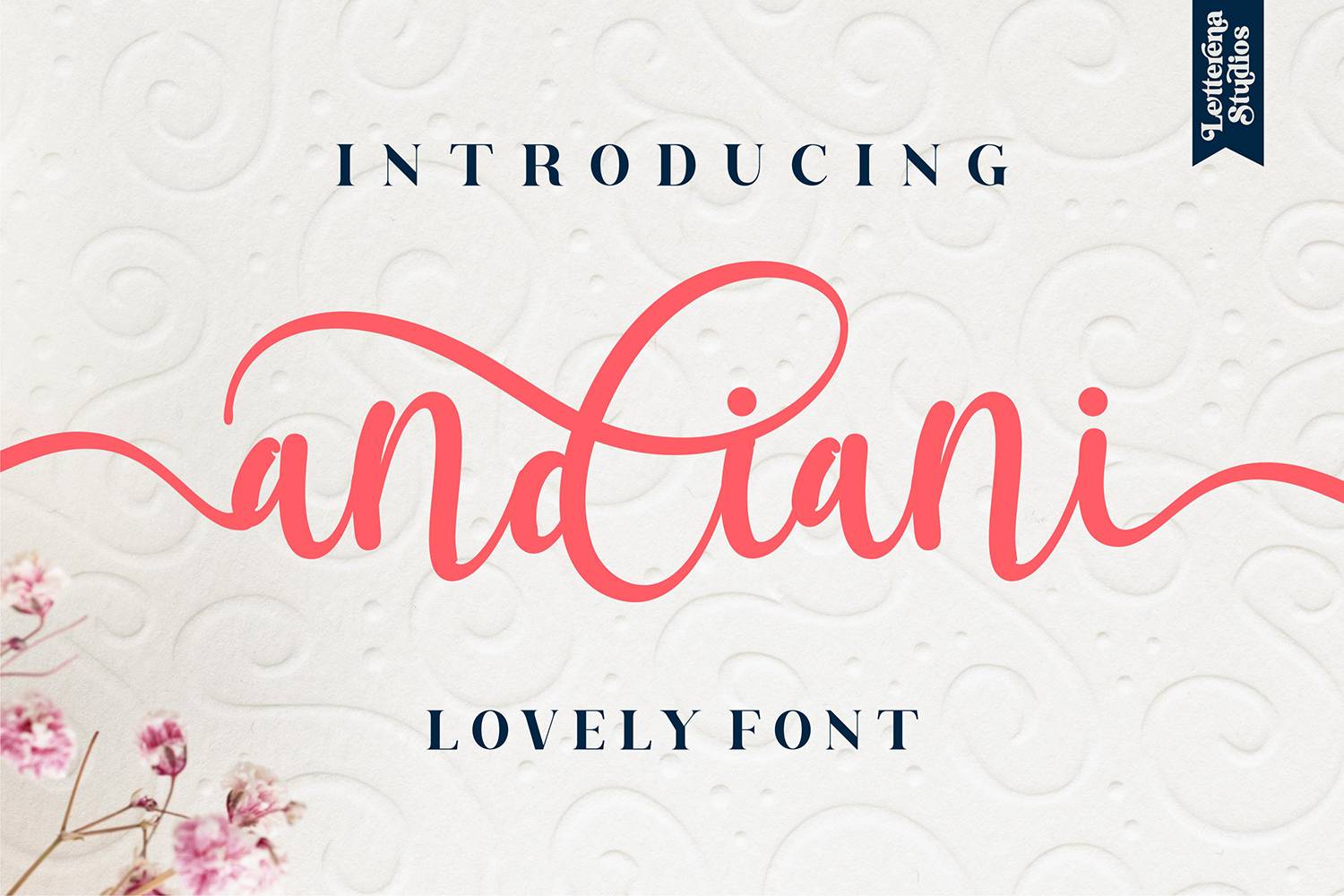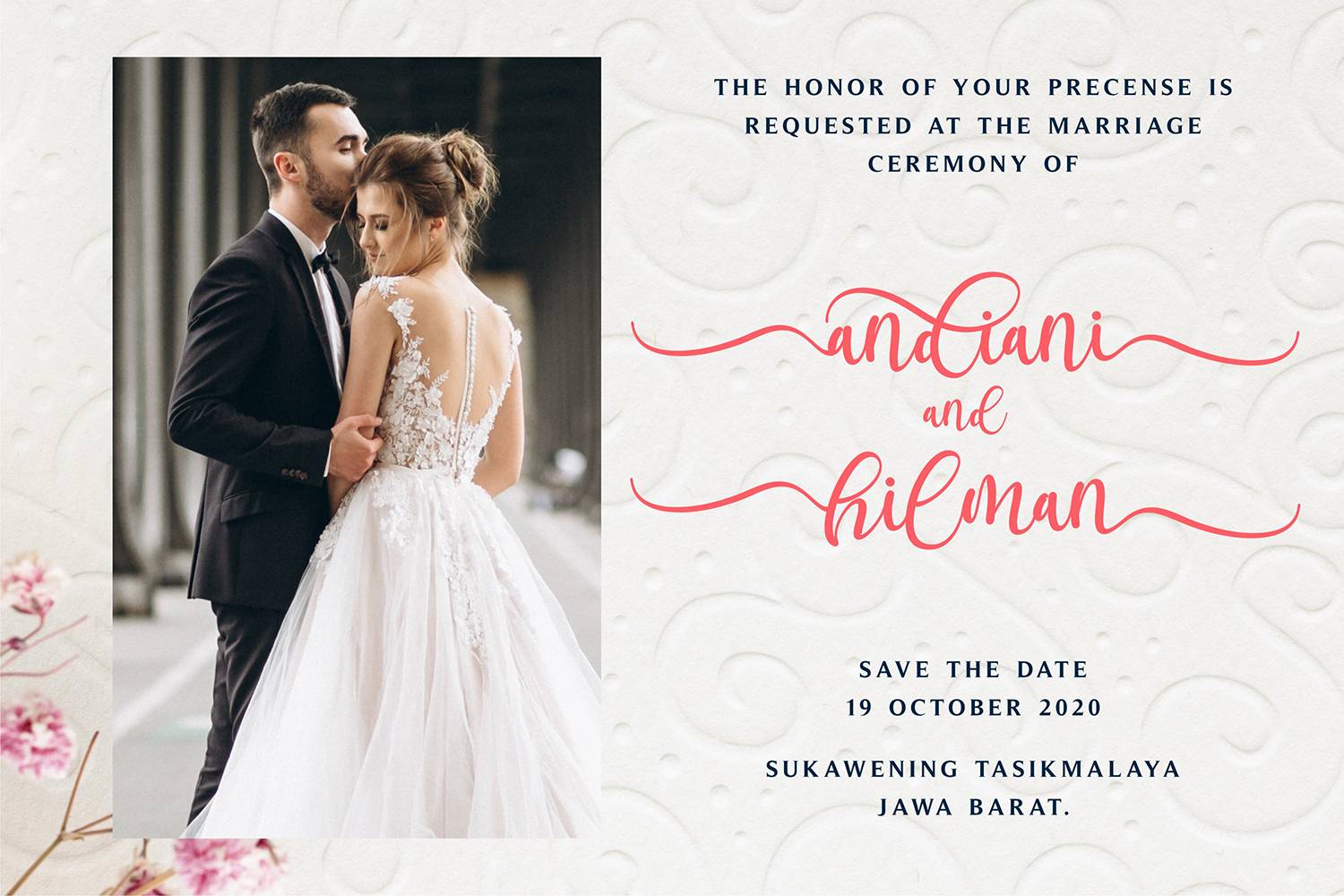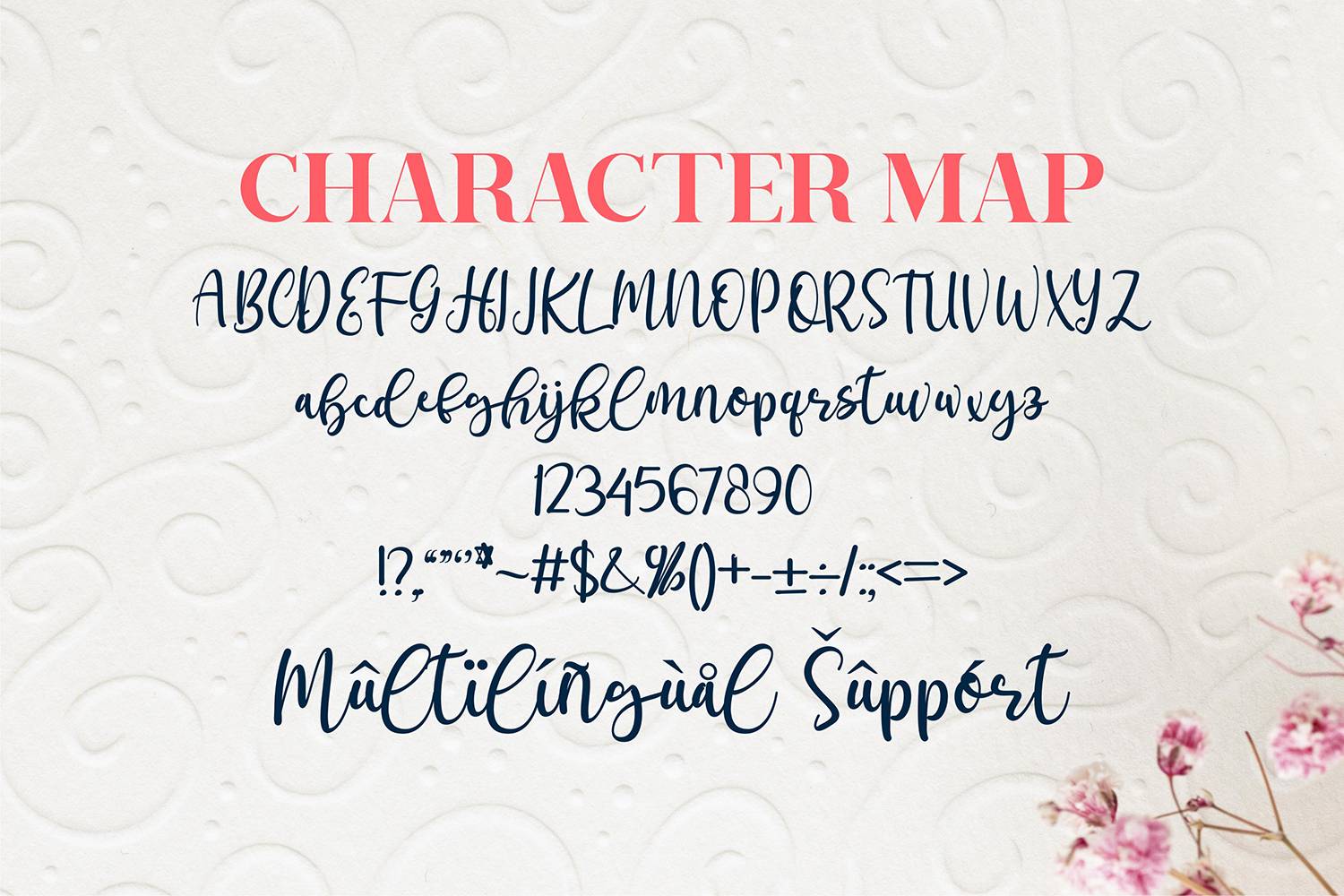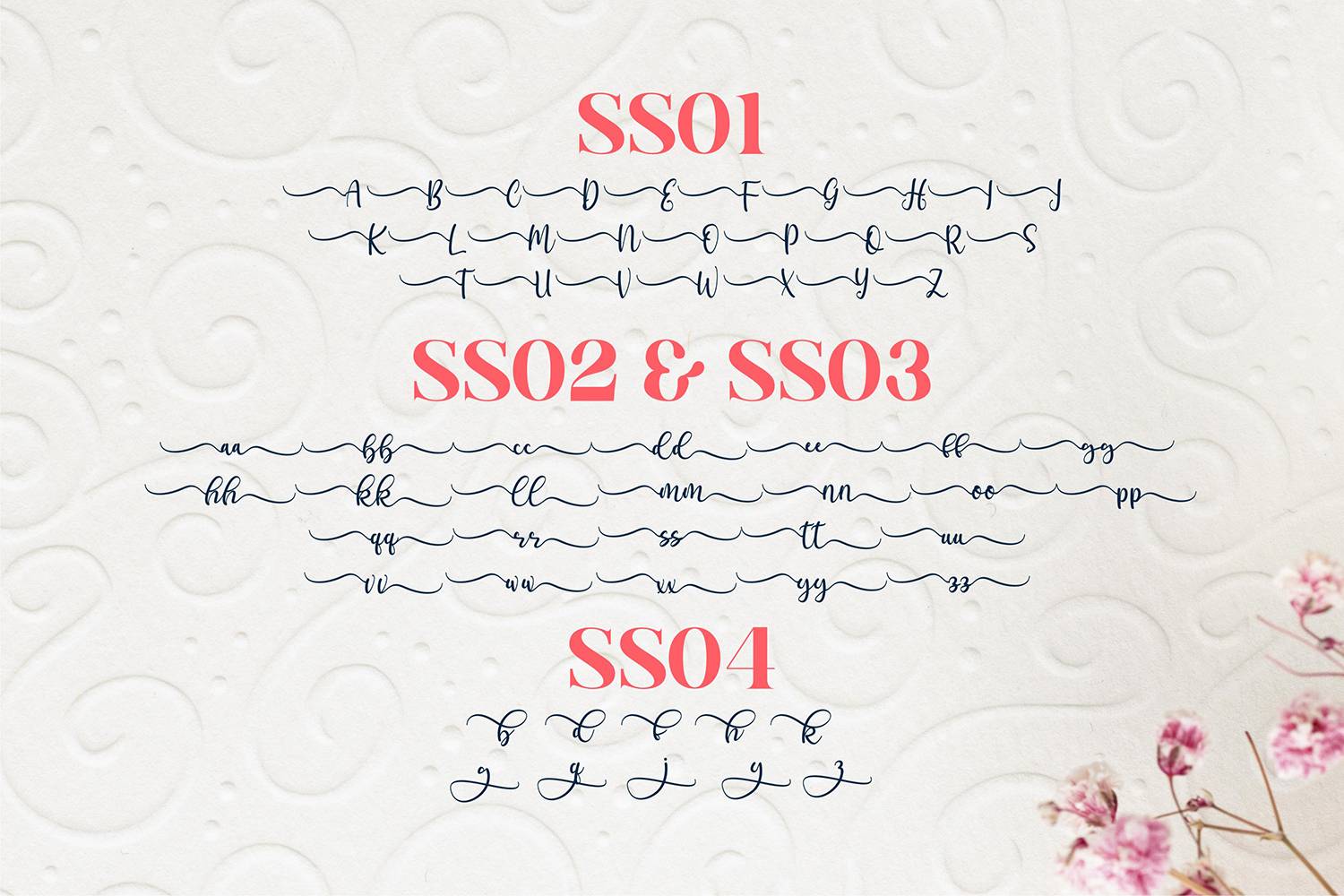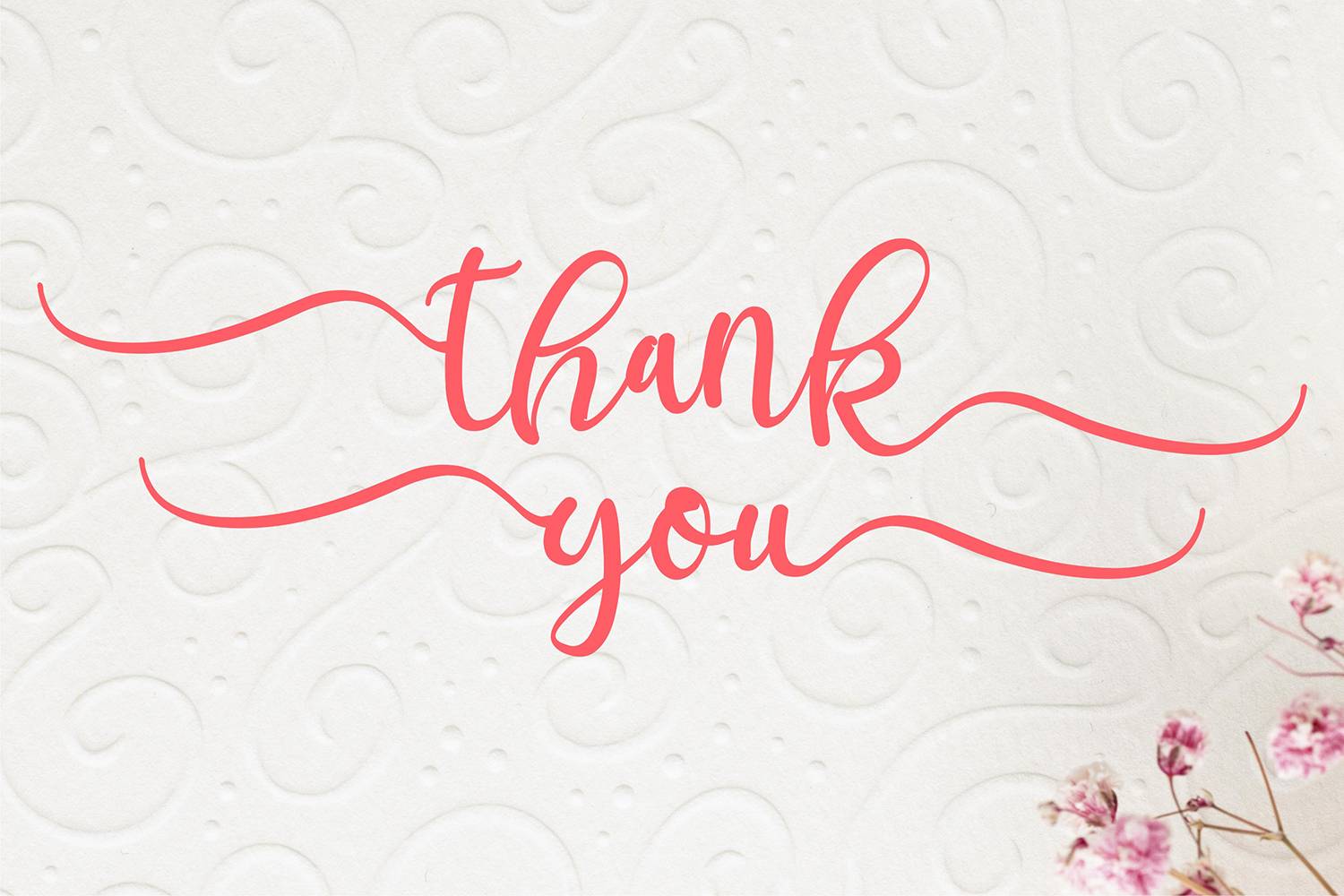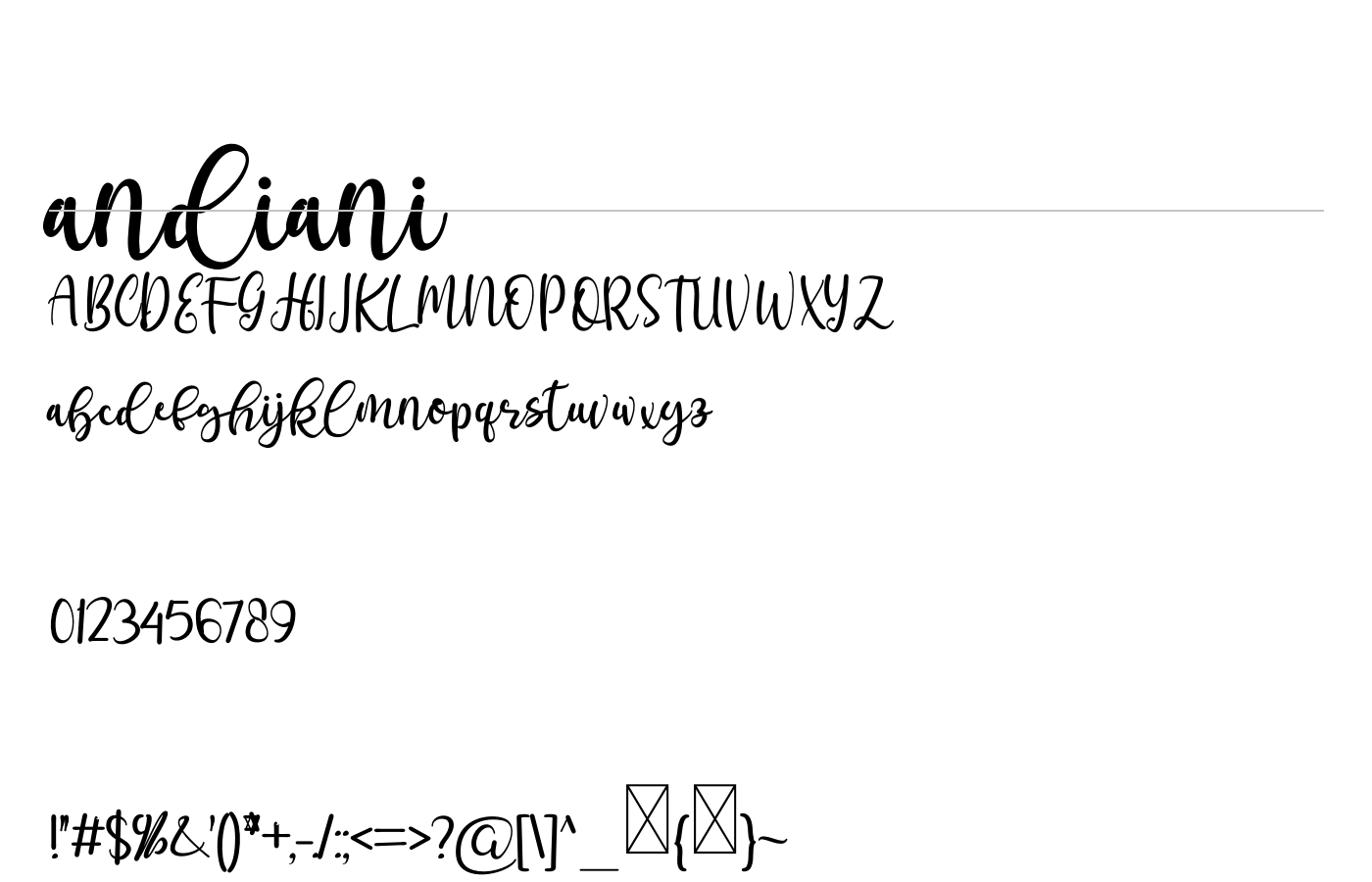
Andiani is a stylish script font that combines playful charm with elegance through its fluid, handwritten letterforms. Featuring smooth, varied stroke widths and unique character details, it works beautifully for branding, invitations, and creative headlines where a personal, artistic touch is desired. Its clean yet lively design makes it perfect for projects that want to balance sophistication with warmth.
Andiani Font
About Andiani Font
| Font family | Andiani Font |